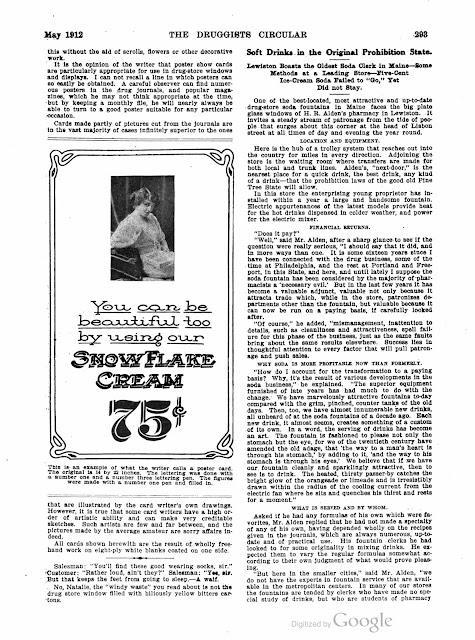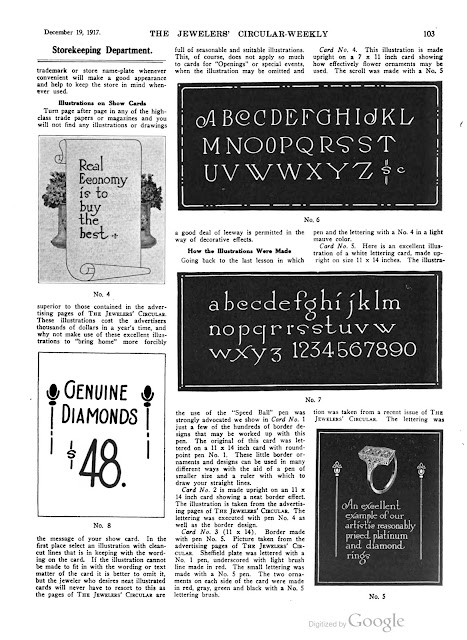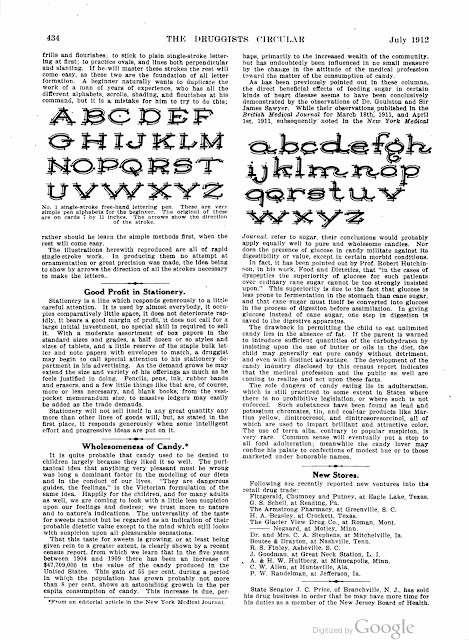
Lettering: Dick Blick, Show Card Writer and Mail Order Art Supplier
Dick Ernest Blick was the founder of a mail order art supplies company, in Galesburg, Illinois, that became the Blick Art Materials chain stores. A timeline is here.
Family History
From page 844 of Portrait and Biographical Album of Knox County, Illinois (1886):
ALFRED H. BLICK, Recorder of College City Lodge, No. 214, A.O.U.W., and salesman in the noted dry goods house of G. A. Murdoch, Galesburg, Ill, is a native of Stroud, in the county of Gloucestershire, England. He was born July 27, 1846, and came to America in 1869. He was educated in England, and there served an apprenticeship at the dry goods trade, something unheard of in this country. His first position in this country was as a clerk in a large dry goods house on Broadway, New York, where he remained about eight months, coming thence direct to Galesburg, he having made arrangements with Mr. G. A. Murdoch, as salesman, and with whom he has since remained.
In 1882, at the organization of College City Lodge, No. 214, A.O.U.W., of which he was a charter member, he was chosen their Recorder, which position he has since held.
Mr. A. H. Blick was married on Thanksgiving Day, 1872, at the Episcopal Church in this city, to Miss Marion Dick, also a native of England, and their children are named respectively Alfred James, Bertha Elizabeth, and Dick Ernest Blick.
Blick was born in Galesburg, Illinois, on June 17, 1882, according to his World War II draft card. The 1900 U.S. Federal Census recorded Blick as the youngest of three children born to Alfred, a dry goods salesman, and Marion. Also in the household was the younger Alfred’s wife, “Margarette”. The family resided at 947 North Seminary Street in Galesburg. Blick was an assistant bookkeeper.
Blick was listed at the same address in the 1902 Galesburg city directory which included his occupation as subscription clerk at the Republican-Register newspaper.
Window Trimmer and Show Card Writer
At some point, Blick was a student at the Koester School in Chicago, Illinois. The school offered instruction in many subjects including window trimming and lettering. Blick’s address was unchanged in the 1904 directory which said he was a window trimmer in Muscatine, Iowa, where his sister, Bertha, was a vocal teacher. Blick was not listed in the 1907 directory which noted that his father passed away February 19, 1906.
In the 1910 census, Blick had returned to Galesburg. He and his mother lived with his sister, Bertha, and her husband and head of the household, William Mowat. Their address was 1055 West Main Avenue. Blick was a window trimmer for a dry goods store.
The Blick website said, “Dick Blick’s first catalog originated in 1911 in the form of a small pamphlet issued by the company’s founders, Dick and Grace Blick. Their first product was a lettering pen, which quickly became a bestseller. Their ‘warehouse’ was their kitchen, and their ‘shipping department’ was the Galesburg, Illinois, post office.” However, Mary Bacchus said her aunt, Grace Atherton, married Blick in 1914. A 1911 issue, possibly from December, of Merchants Record and Show Window mentioned Blick.
Blick’s show card writing instruction was featured in four issues of The Druggist Circular.
| March 1912 |
| May 1912 |
| June 1912 |
| July 1912 |
Blick’s work for the O. T. Johnson Company, in Galesburg, was recognized in an advertisement in Dry Goods Reporter, August 17, 1912. In the second column, the text called the second prize winner, “Richard E. Blick”.
The Boot and Shoe Recorder, August 21, 1912, said, “Another contributor to the Recorder, Dick E. Blick of the O. T. Johnson Co., Galesburg, Ill., who recently gave us a complete new system of card writing, utilized the same type of letter in the prize show card for which he won a silver medal, and a special prize of a gas outfit to be used in air brush work.”
The Dry Goods Reporter, November 16, 1912, reproduced Blick’s prize-winning card (bottom right).
Blick’s prize-winning was noted in Merchants Record and Show Window, January 1913. In the same periodical, Blick began advertising. The April 1913 issue had a classified advertisement for the Payzant lettering pens. Blick was the manager of The Card Writers Supply Company in Galesburg. The May 1913 issue had an article and two advertisements: the same classified one and a display one.
| May 1913 |
Merchants Record and Show Window, June 1913, featured six cards by Blick and mentioned his Card Writers Supply Company.
A photograph of Blick’s paint display window for the O.T. Johnson Company appeared in the July 1913 Merchants Record and Show Window. The same issue had a small display advertisement for Blick’s company.
Merchants Record and Show Window, August 1913, announced the winners at the 16th Annual Convention of the National Association of Window Trimmers of America. Blick was a second prize winner.
The advertisement, below, referred to the 1913 convention as the “1914 Convention”. Blick was one of several Koester students to win prizes.
Blick signed his World War II draft card April 27, 1942. The card said his business was mail order sign writer supplies in room 211 of the Bondi Building in Galesburg.